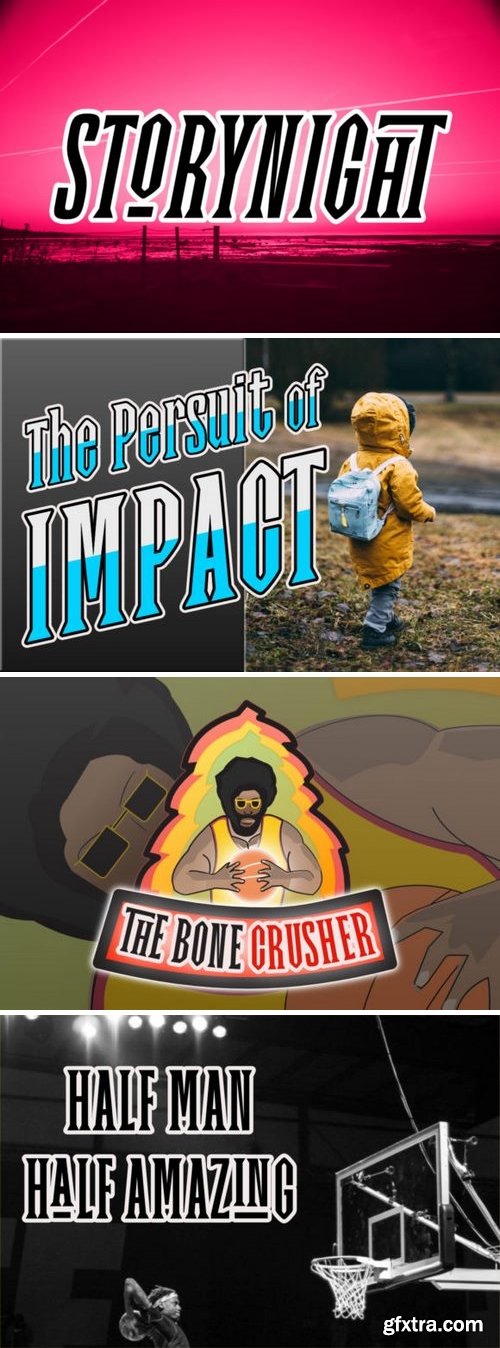
Story Night Font
If you’re looking for an antique high energy font, look no further. Story Night is an exciting font due to the unique experience it provides. It comes in a regular and italic style which can be used to create unique designs in an instant.